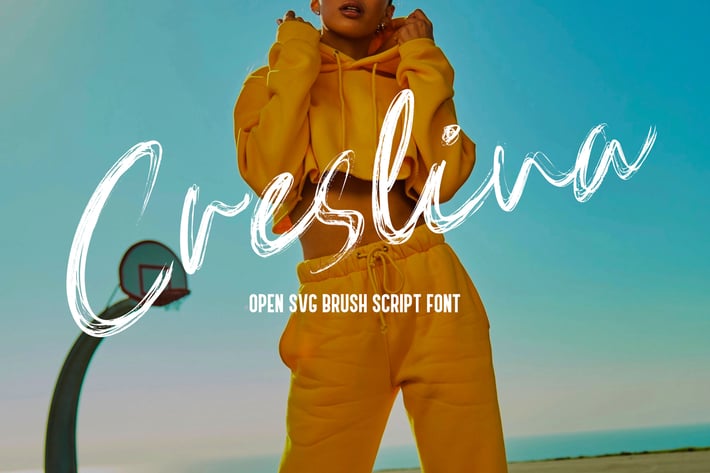
Creslina - SVG Brush Script Font
Creslina - Open SVG Brush Script font. It has a elegant, classy look and beauty. It’s a great font for fashion,
apparel projects, signature, album cover, logo, branding, magazine, social media, & advertisements,
but also works great for other projects.
- Standard glyphs (Uppercase, Lowercase, Numeral & Punctions)
- Fonts include multilingual support for; ä ö ü Ä Ö Ü ß ¿ ¡